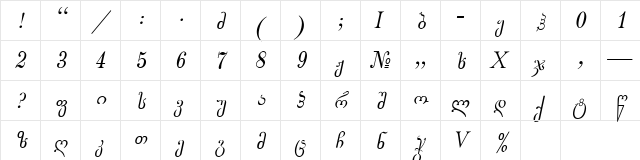
Gogebashvili-ITV Italic
Design Context for Gogebashvili-ITV Typeface
Gogebashvili-ITV is a composed and adaptable typeface that performs quietly and consistently across a wide range of design contexts. The slanted form adds forward momentum and visual energy.